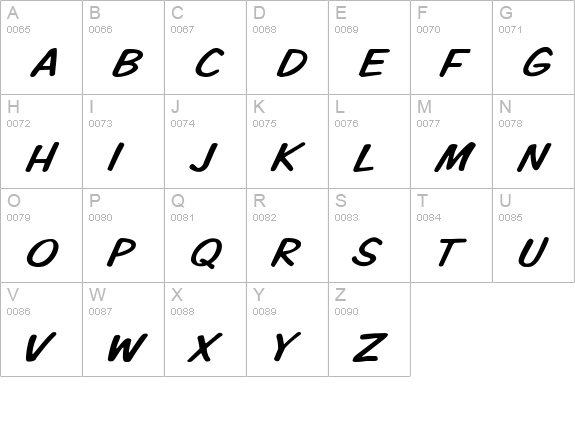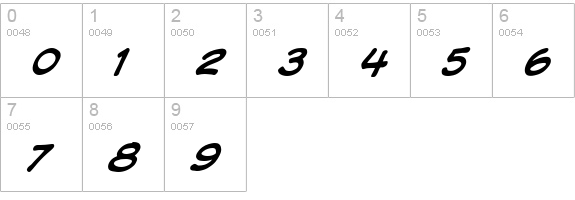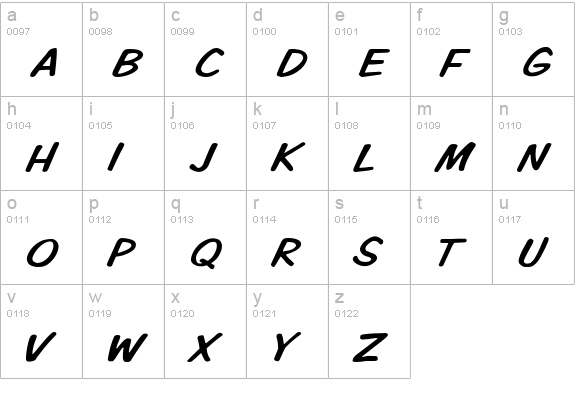
VTCKomixationCapsItalic Font Details
VTCKomixationCapsItalic is a captivating and dynamic font that adds a touch of playfulness and creativity to any design. With its unique italic style, this font exudes a sense of movement and energy, making it perfect for projects that require a bold and expressive look. This font is not only visually striking but also incredibly versatile. Whether you're creating eye-catching headlines, designing eye-catching logos, or adding a touch of flair to your social media posts, VTCKomixationCapsItalic is sure to make a lasting impression. What sets VTCKomixationCapsItalic apart is its availability as a free download at FontsMarket.com. This means that designers, artists, and creatives of all kinds can access this incredible font without having to spend a penny. This generosity allows for greater accessibility and encourages the exploration of new and innovative design possibilities. With its playful personality and freely available nature, VTCKomixationCapsItalic is a must-have font for anyone looking to add a touch of excitement and creativity to their projects. So why wait? Download VTCKomixationCapsItalic today and let your imagination run wild.